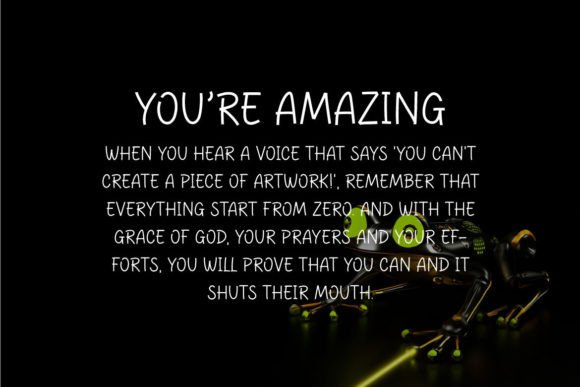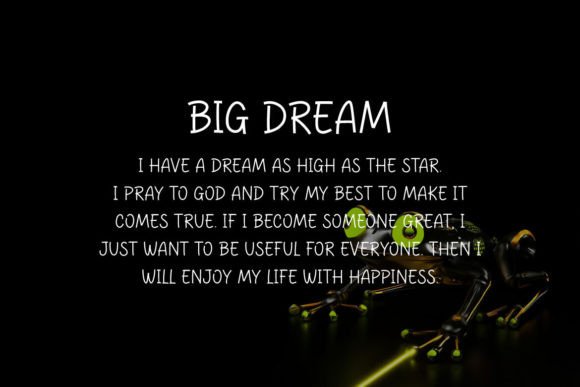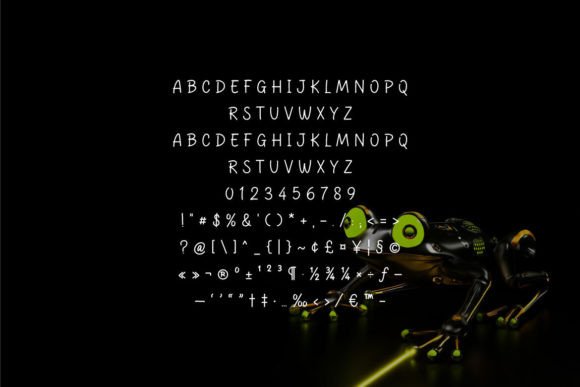
Introduction to Frogy Beam Font
Have you ever found yourself lost in the world of design, searching for the perfect font to bring your creative vision to life? The moment when all the pieces fall into place, and your design starts to radiate with personality? For designers, this moment is a treasure, and the right font can make all the difference. Enter **Frogy Beam Font**, a beautifully crafted thin handwritten font that will transport your designs to a world of elegance and sophistication.
This stunning font is a game-changer for any creative project, from graphic design to typography. With its delicate strokes and clean lines, **Frogy Beam Font** offers a high-quality design resource that is both versatile and stylish. Whether you’re working on a project that requires a free download or a design element with a transparent background, this font is sure to impress. Download **Frogy Beam Font** today and unlock a world of creative possibilities.
Frogy Beam Font
- High-quality font designed for creative projects and design resources.
- Perfect for use in graphic design, digital art, and other creative projects.
- Includes a range of characters, including uppercase and lowercase letters, numbers, and special symbols.
- High-resolution design, suitable for use at various sizes and resolutions.
- Unique and playful design makes it ideal for adding a touch of whimsy to your design projects.
Honest Review: Frogy Beam Font
What I love about the Frogy Beam Font is its playful and whimsical feel, perfect for illustrations, children’s books, or even branding for a fun and quirky business. The high-quality design makes it a great addition to any project. ✨ The font also features a transparent background, making it easy to use in a variety of design contexts.
- Unique and playful feel
- Transparent background for easy use
One potential limitation is that the font may not be suitable for more formal or professional projects. However, for a creative project or personal design, the Frogy Beam Font is a great choice.
Overall, I’m impressed with the Frogy Beam Font and would definitely recommend it to designers looking for a fun and unique design resource.
Tips for Getting the Most Out of Frogy Beam Font
Use the Frogy Beam Font in conjunction with other design elements, such as shapes and graphics, to create a unique design. Experiment with different font sizes, colors, and styles to achieve the desired effect. Consider using the font in combination with other high-quality design resources to create a cohesive and visually appealing design.
The Frogy Beam Font is ideal for use in various creative projects, including graphic design, digital art, and typography-based designs. It can also be used in presentations, documents, and websites to add a touch of creativity and whimsy.